21 Professional and Impressive Business Card Fonts
So, which are the best business card fonts to use? We reveal all the best ones in this article.
Modern graphic designers surely have polarized opinions on Times New Roman. Love it or hate it, this font has been used for headlines, body text, and logos for a LONG time and is still one of the widely used fonts on business cards of any size or style.
Times New Roman looks the best when used as body text, so you might want to blend it into your business card design as a secondary text.
Sans serif fonts are popular for logos, headlines, and body text, and Helvetica is the most popular among them.
The font is known for its minimalist yet legible look, thus giving a clean look and a professional feel to your business cards.
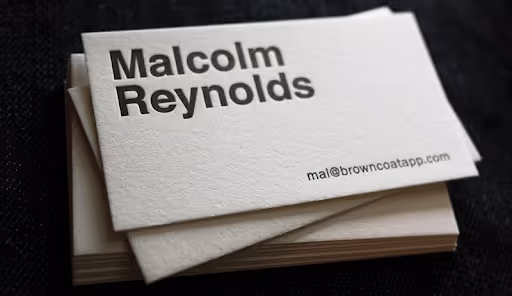
Designed in 1982 by two renowned and respected typeface designers, Patricia Saunders and Robin Nicholas, Arial font is an off-shoot of Helvetica.
That’s why Arial is another very common business card font, thanks to its crisp look and high legibility.
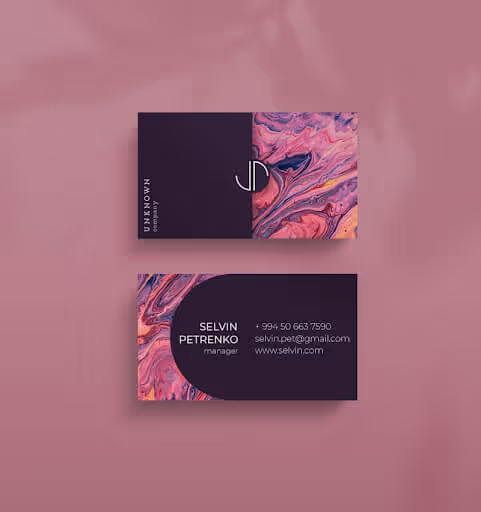
If the nature of your business is creative and innovative, then this script typeface can be a good business card font.
Black Caviar is a popular choice among graphic designers for its humanistic touch of handwritten-like letterheads, making the names and signatures on your business cards look as if written by hand. The font has multiple variations and thus can be coupled with any serif or sans serif font.
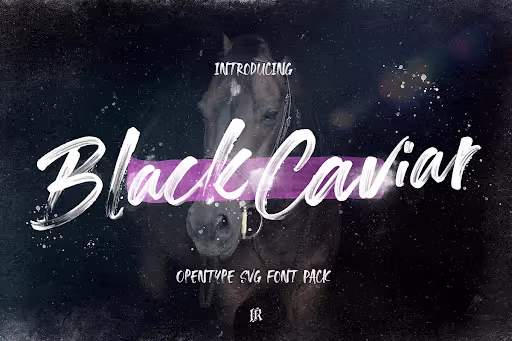
Thanks to its unique look, Riviera could make a perfect logo font. It’s an all-caps font with generous spacing. So, you don’t have to worry about your name being legible on a business card.
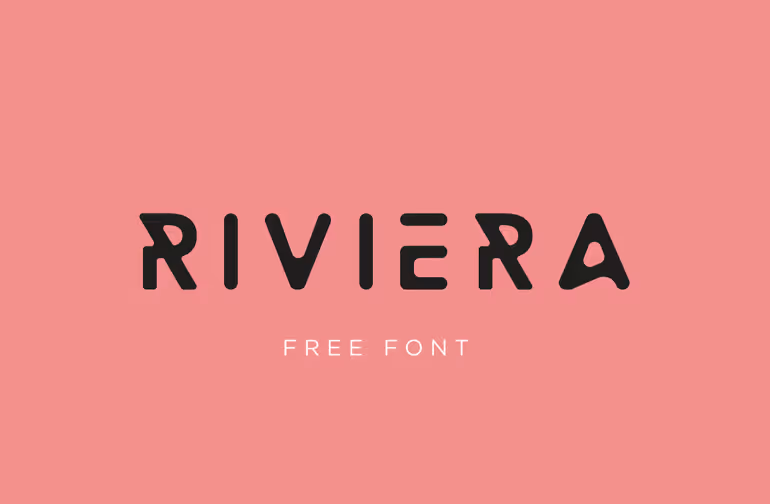
A serif font, Buenard looks great on business cards due to their slightly slanted (or angled) serifs. Its character design features various glyphs and thus makes it one of the most versatile and best business card fonts, especially for names and headings
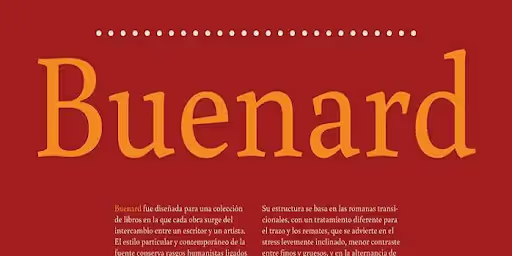
One of the best fonts for business cards, Playfair Display is known for its serif typeface that is minimalistic yet regal. If you want to design a professional or formal business card, this font can be a good choice.
Another free font that comes in various styles, sizes, and weights, Futura is one of the best sans serif typefaces for business cards.
Designed in 1927, the Futura font is based on geometric shapes, especially circular shapes.
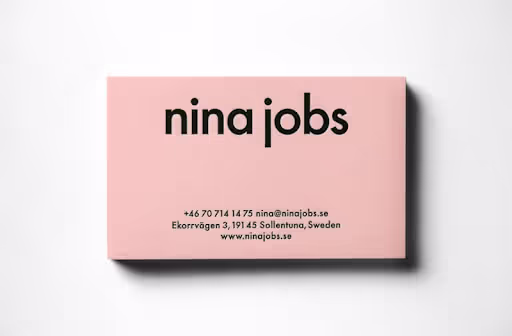
Trajan Pro is inspired by ancient Roman inscriptions, making it a perfect font choice to add a dash of elegance to a powerful business card. It can be a great business card font for lawyers and law firms websites.
If you are looking for a minimalist yet stylish serif font, then Solomon is an excellent font choice.
Due to its affluent character design and multiple weights, Solomon is best suited for apparel, fashion, and luxury business cards.
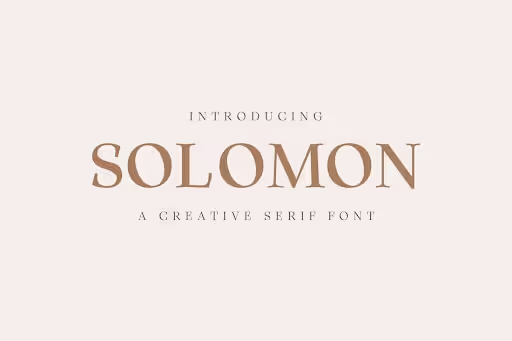
Southampton adds a personalized handwritten touch to the business cards with its modern, elegant, and classy look. Make sure to use a bigger business card font size with a decorative font like this to ensure legibility.
Leyton is the perfect choice for your high-end business cards and art deco logos.The font is free to use and is best suited for headings and names of fashion logos, agencies, and hotels.
13. Mosk (Free)
Mosk is a modern sans serif linear font that would make a very stylish business card font. Believe it or not, this sleek typeface is free to use for personal and commercial purposes.
14. Apple Garamond (Free)
When Apple launched Macintosh in 1984, they also introduced their main branding font: Apple Garamond. It has since been used in all the company’s marketing material – digital and print.
If you are a CEO and looking to create a powerful business card that matches your authority, then Apple Garamond is a solid choice.
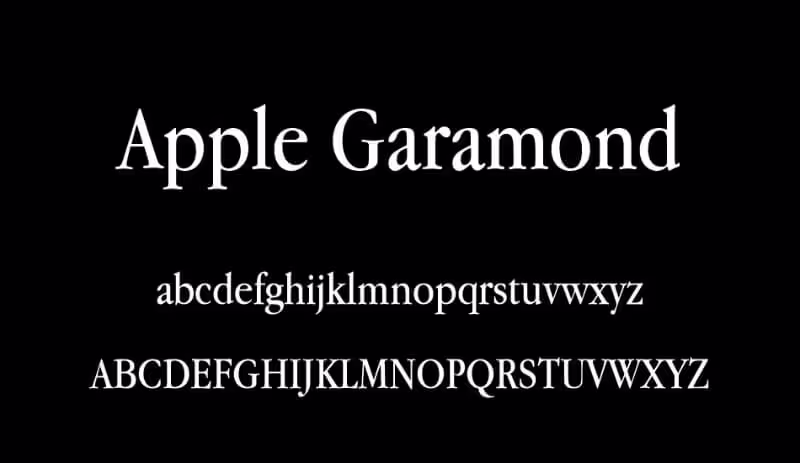
15. Broadway (Purchase Only)
If you want a decorative business card that oozes creativity and innovation, then a script font like Broadway might be the best business card font for you.
However, couple this script font with a serif/sans serif font since Broadway looks fantastic for names and signatures, but not with the body text or contact information.
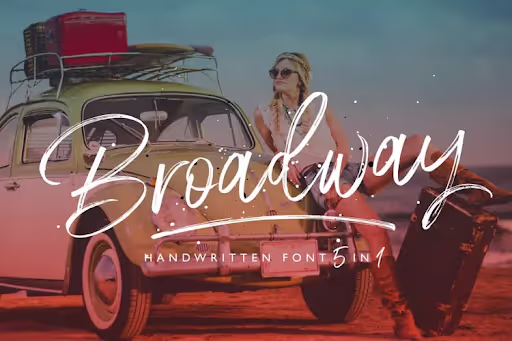
If the nature of your business is technology, artificial intelligence, or anything futuristic, then you should consider Helios as one of your business card font ideas. Its various alternatives of uppercase letters can give your business card just the right style and tone.